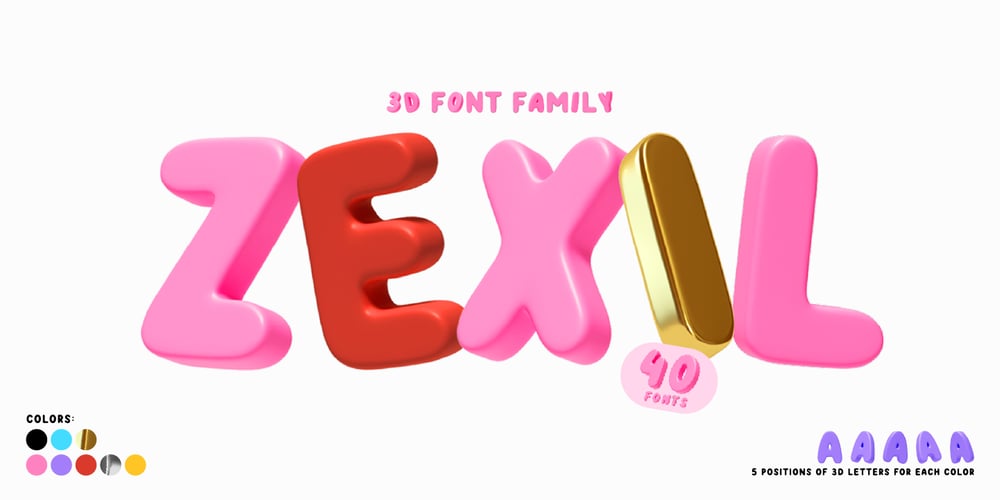
Zexil Font Family was designed by Lauritta Ivanova and published by Luxfont. Zexil contains 41 styles and family package options. Create stunning visual impact with Zexil 3D fonts. Many ready-made color options, metallic and matte surfaces. 5 tilt options for each color. Easy to use at work. Just write your text and apply this font. Combine different letters and get an amazing visual effect. Have fun experiments)Features:- Real 3D effect- 5 positions for each colors- Different colors & materials – Uppercase and lowercase letters are the same- KerningIMPORTANT:- Check the glyphs in the font before buying!- SVG fonts contain raster letters.- Check it www.colorfonts.wtf- Try a FREE DEMO version before buying.ld.luxfont@gmail.com